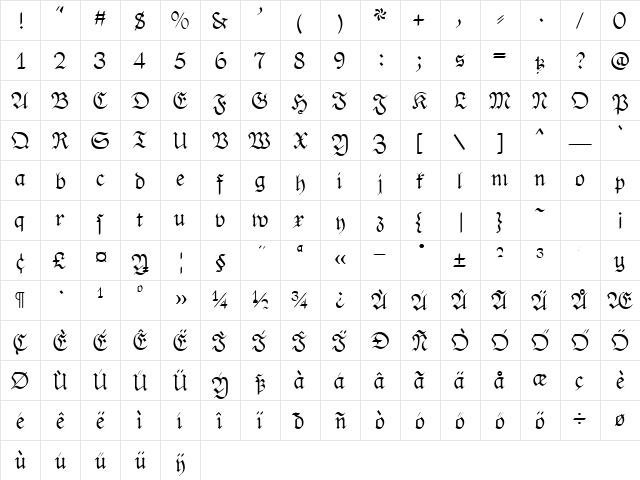
Hu_PhederFrackDtsh Regular Free Font
Hu_PhederFrackDtsh Regular
Complete Hu_PhederFrackDtsh Regular glyph index. Displaying only characters natively supported by Hu_PhederFrackDtsh Regular font.
Design Context for Hu_PhederFrackDtsh
Hu_PhederFrackDtsh is a composed and adaptable typeface that performs quietly and consistently across a wide range of design contexts.